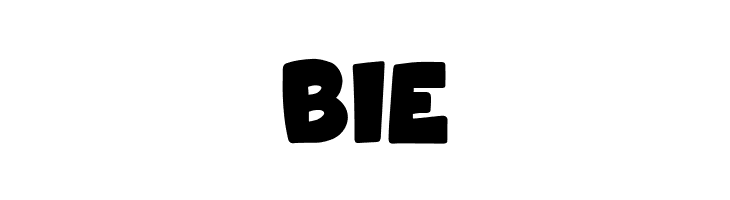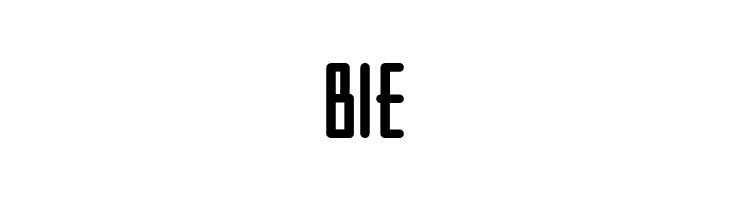
A refined and elegant italic serif font with smooth curves and classic style.
A bold, hand-drawn script font with a lively and playful style.
A bold, expressive handwritten font with dynamic strokes and artistic flair.
A bold, slightly condensed font with a blend of modern and vintage styles.
A bold, playful font with rounded, hand-drawn characters.
An elegant, flowing script font with a natural handwritten style.
A bold, geometric font with tall, narrow characters and a modern style.
A bold, angular font with a modern and vintage blend.
A lively, expressive handwritten font with dynamic strokes.